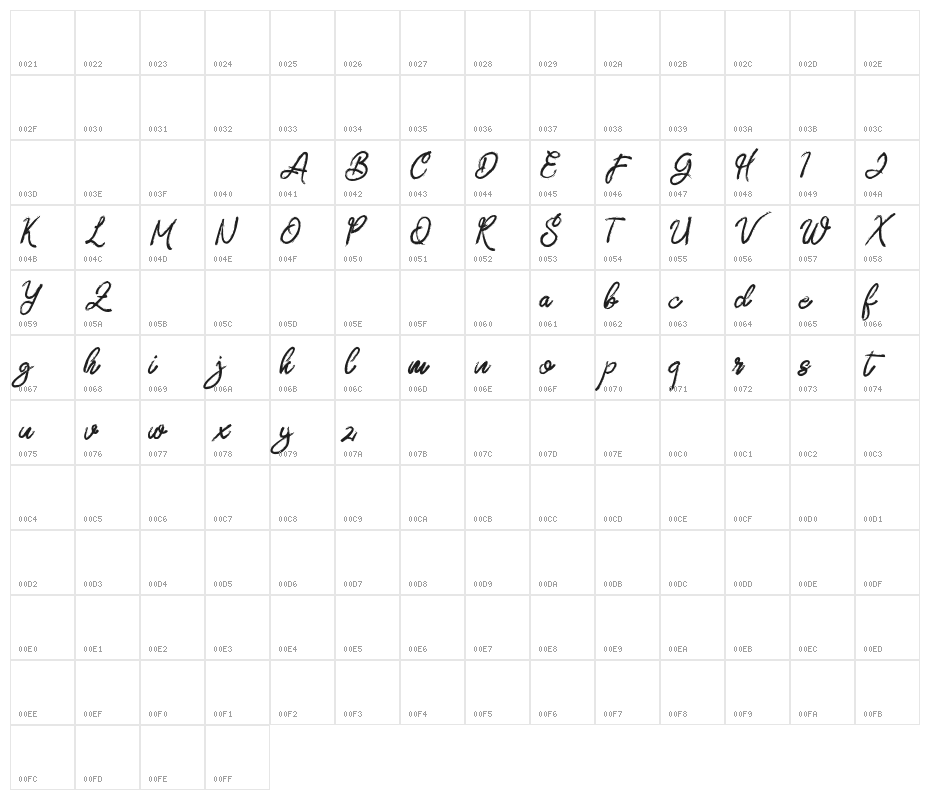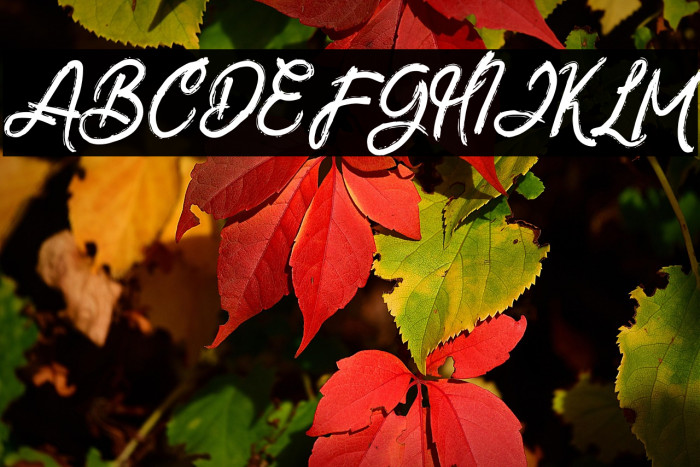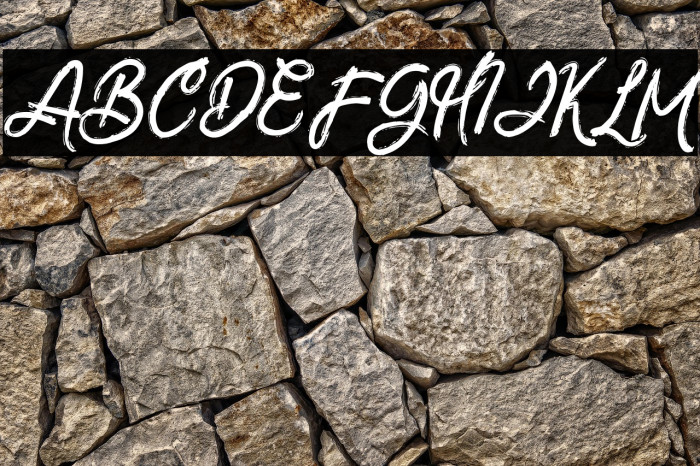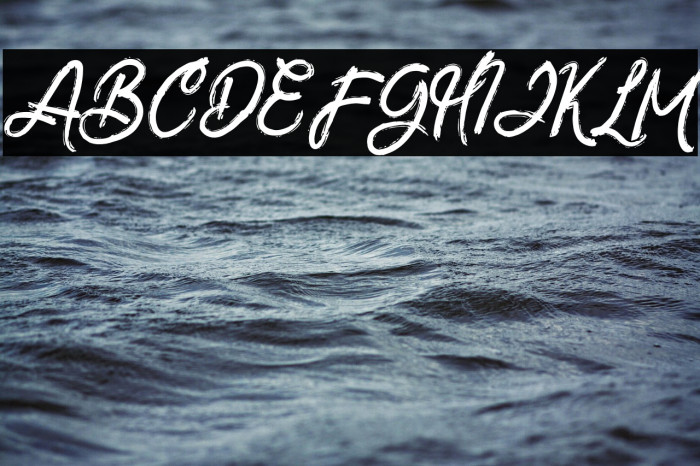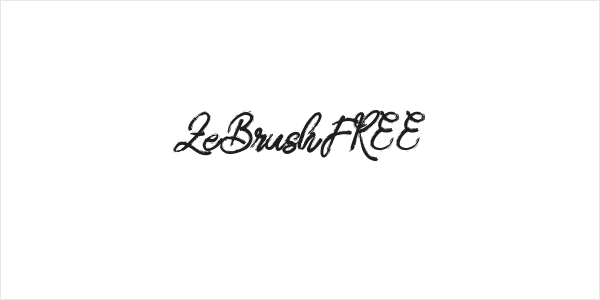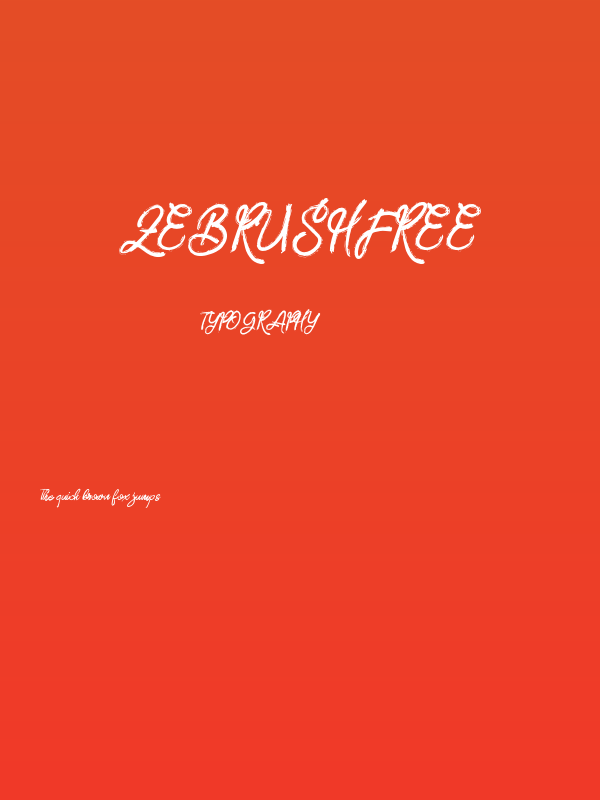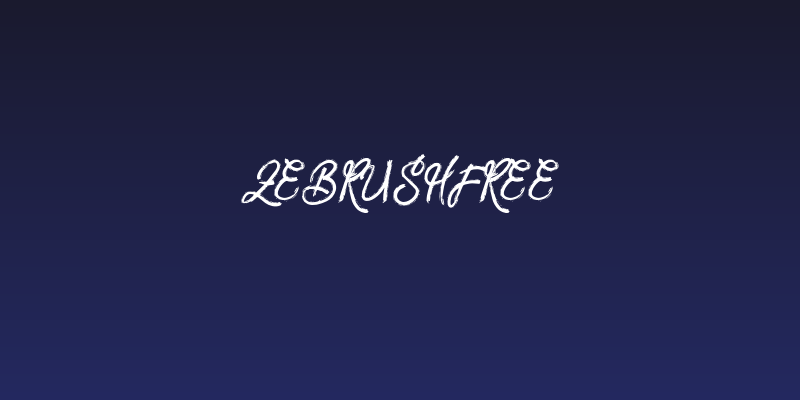
ZeBrushFREE Font
ZeBrushFREE Description
This font exhibits a bold, expressive style with a handwritten appearance. The strokes are dynamic and fluid, giving each character a sense of movement and energy. The uppercase letters are particularly striking, with sweeping curves and varying line thickness that add a touch of elegance and flair. The lowercase letters maintain the same energetic style, with some characters featuring distinctive loops and swashes. The overall look is both artistic and modern, making it suitable for creative projects that require a personal touch. The font's brush-like texture adds depth and character, enhancing its visual appeal.
Proposed ProjectsIdeal for branding, logos, posters, invitations, and any design that benefits from a personal, artistic touch.